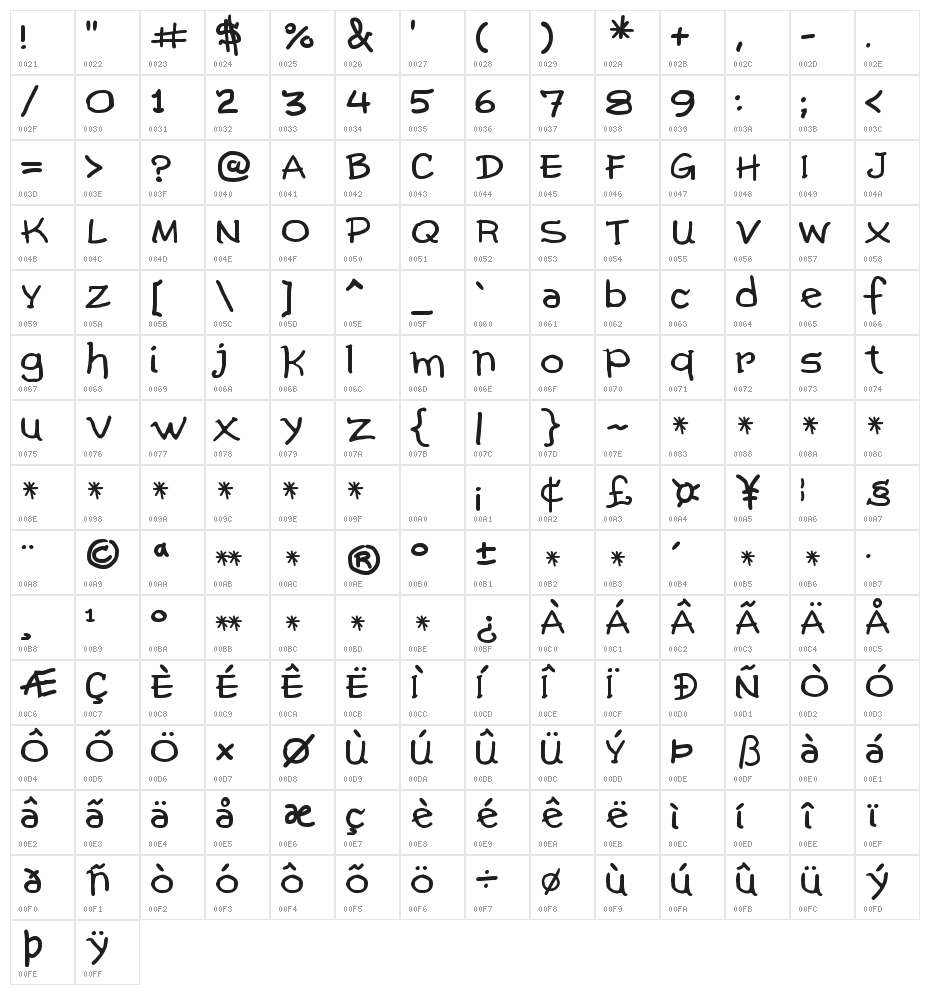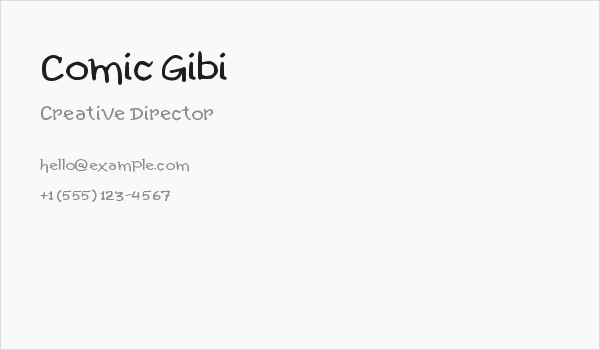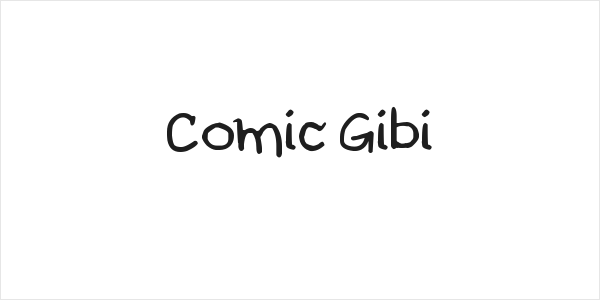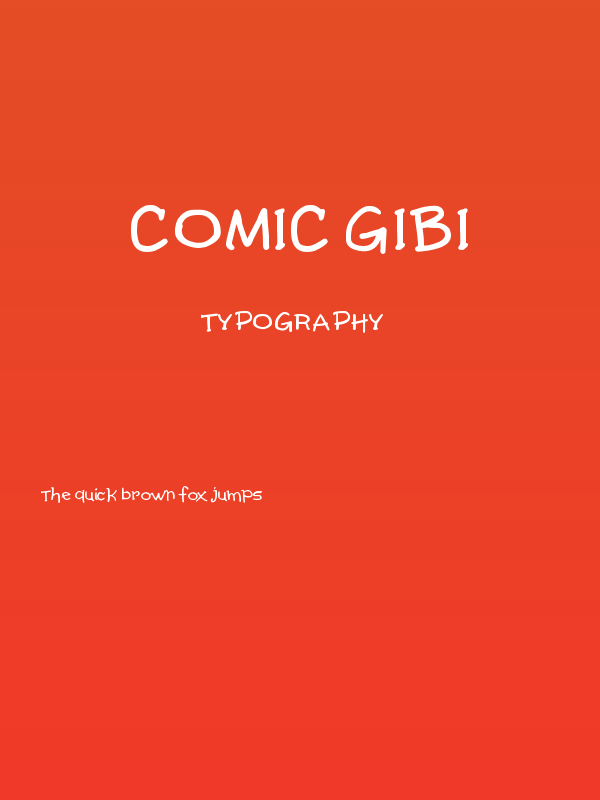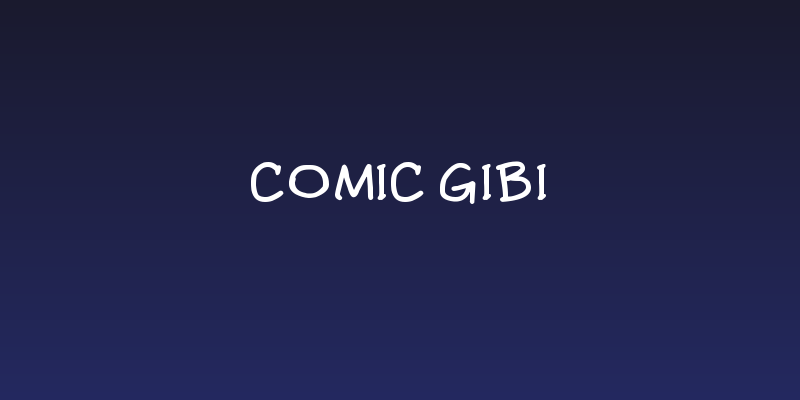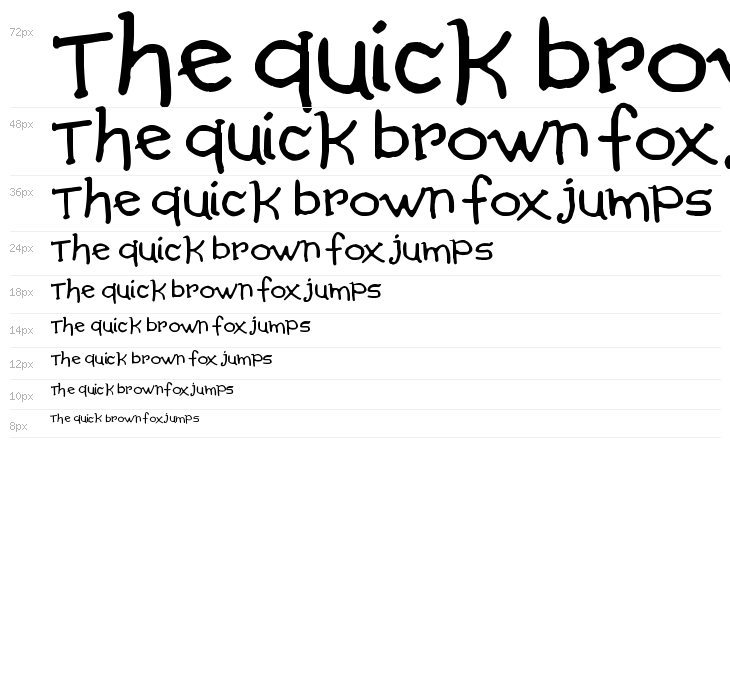
Comic Gibi Font
Comic Gibi Description
This playful and informal font features a handwritten style with a casual, comic-like appearance. The letters are slightly irregular, giving it a whimsical and friendly feel. The strokes are rounded and consistent, with a medium thickness that ensures readability while maintaining a fun aesthetic. The font includes both uppercase and lowercase letters, numerals, and a variety of special characters, making it versatile for different uses. Its design is reminiscent of comic book lettering, which adds a touch of nostalgia and charm.
| Proposed Projects | Ideal for children's books, comic strips, casual invitations, and playful branding. |